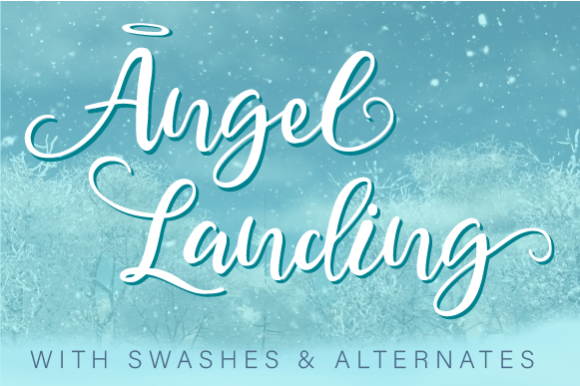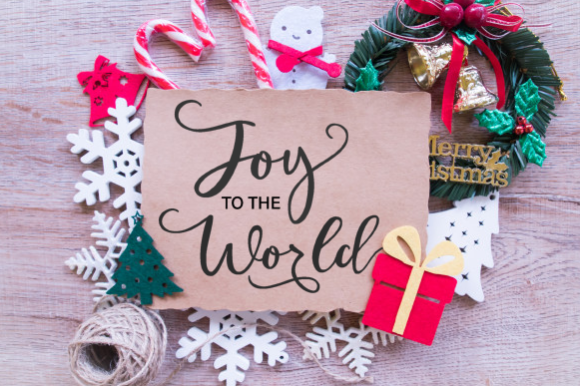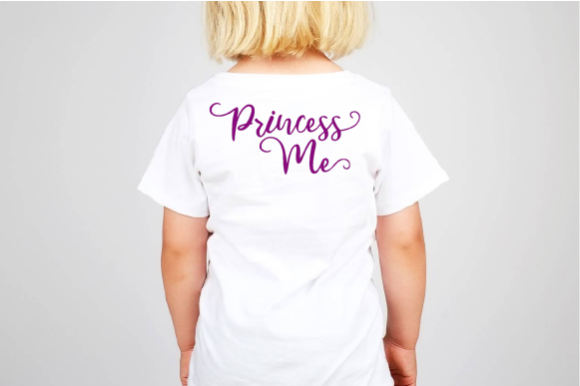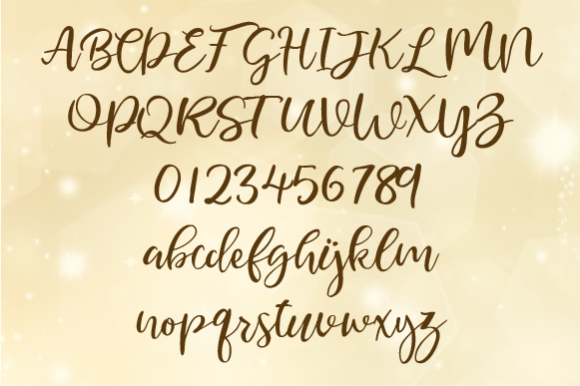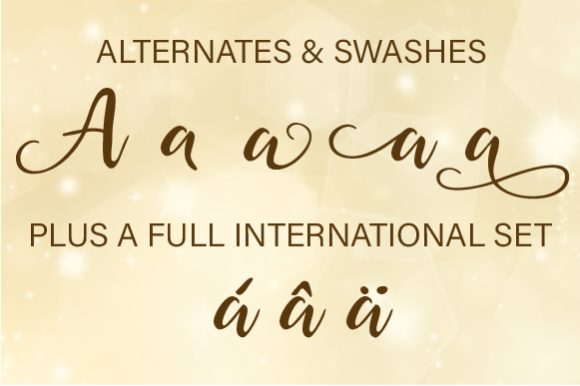
Angel Landing Font
About Angel Landing Font
The Angel Landing is a feminine script font. It can be used to add some elegance to your wedding, baby cards, holidays, or any other design that needs some flair.